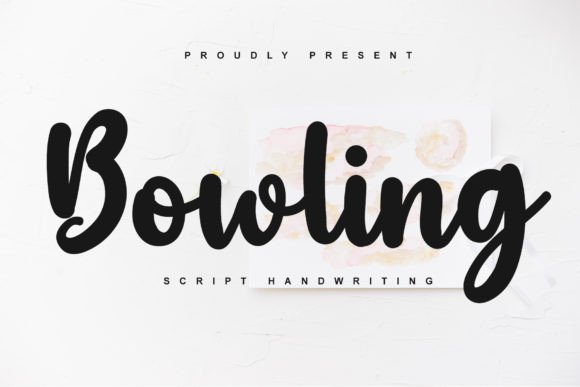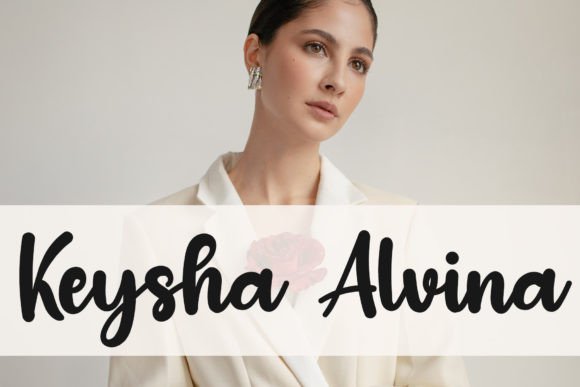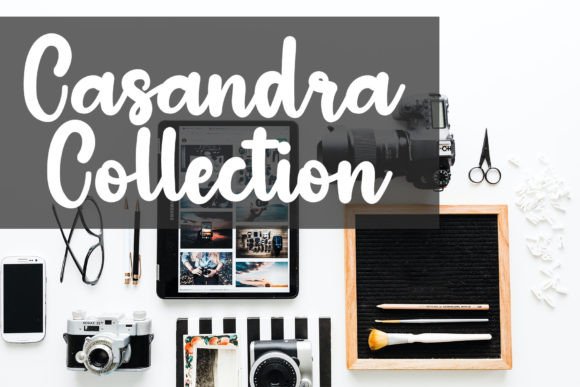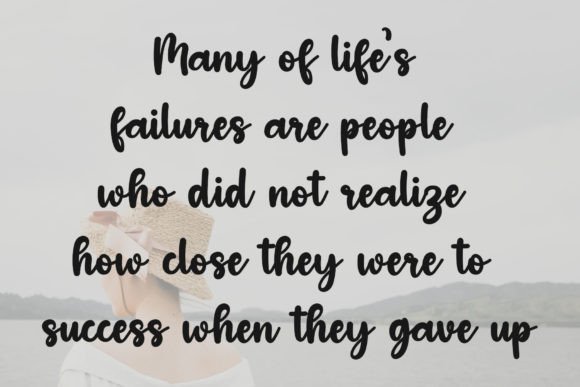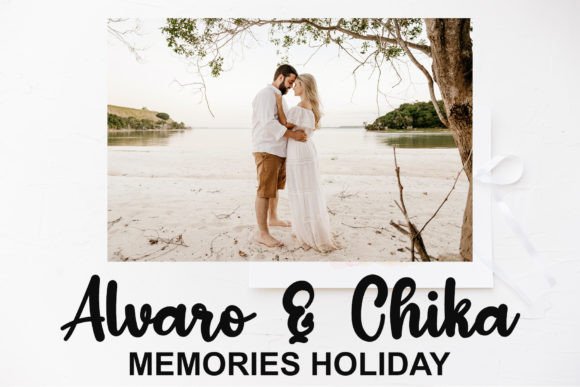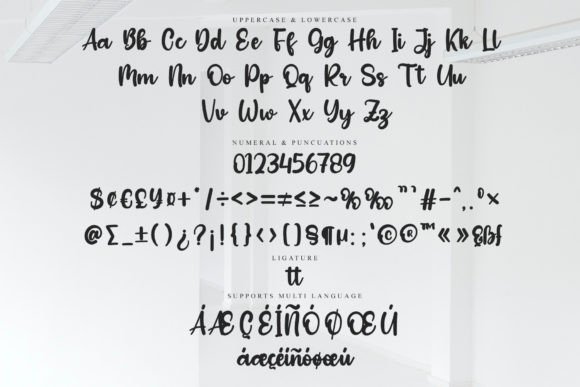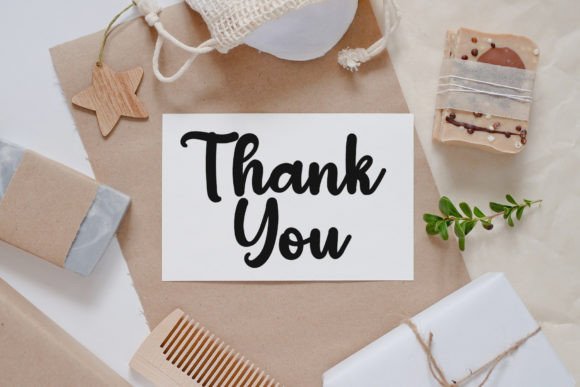
Bowling Font
Discover the Elegant Charm of Bowling Font
Bowling Font is a beautifully handwritten script that captures both elegance and warmth. With its flowing strokes and balanced form, this font adds a refined yet approachable character to your creative work. Whether you’re designing a romantic invitation or crafting a brand identity, Bowling Font helps you create visually stunning results.
This typeface reflects a classic handwritten aesthetic while remaining clean and easy to read. Its smooth lines and graceful curves give your designs a timeless look that stands out in any setting.
Why Choose Bowling Font?
Choosing the right font can elevate your entire project. Bowling Font is more than just pretty lettering—it’s a design asset. Each glyph is thoughtfully designed to convey a sense of personality while maintaining visual harmony. The result is a typeface that feels both genuine and elegant.
Perfect for a Variety of Creative Uses
Because of its versatility, Bowling Font fits a wide range of creative applications. Here are just a few ways you can use it:
• Wedding Invitations: Add a personal and romantic flair to your big day.
• Thank-You Cards: Make your message feel warm and sincere.
• Logos & Branding: Give your brand a soft, memorable identity.
• Greeting Cards & Quotes: Share uplifting words with elegance.
• Business Cards: Present your name with sophistication and style.
Add a Touch of Personality
One of the best things about Bowling Font is how naturally it complements both modern and vintage aesthetics. Its flowing handwriting style is perfect for designers who want to infuse their work with a personal, handwritten feel. Whether you’re a professional designer or a DIY creative, Bowling Font will serve you well in various print or digital projects.